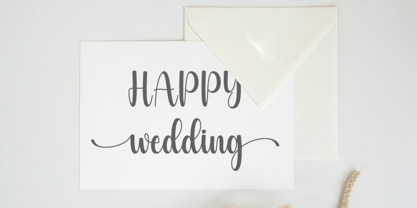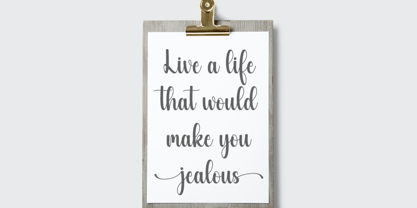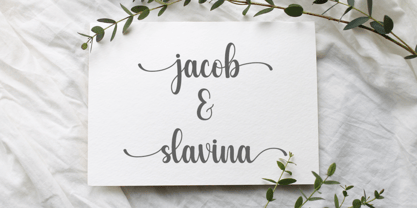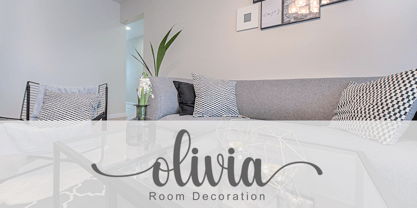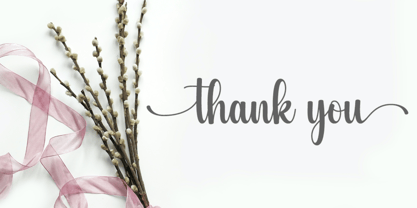
Lucky
by Hardiboy Design
The Lucky Font Family was designed by Hardiman Siswanto and published by Hardiboy Design. Lucky contains 1 styles. More about this family
Lucky is an elegant and delicate handwritten typeface. This is perfect for your various design needs, such as logos and branding, social media posts, advertisements, business cards, wedding invitation, product design, etc. This font is PUA encoded which means you can access all of the glyphs and alternates with ease!